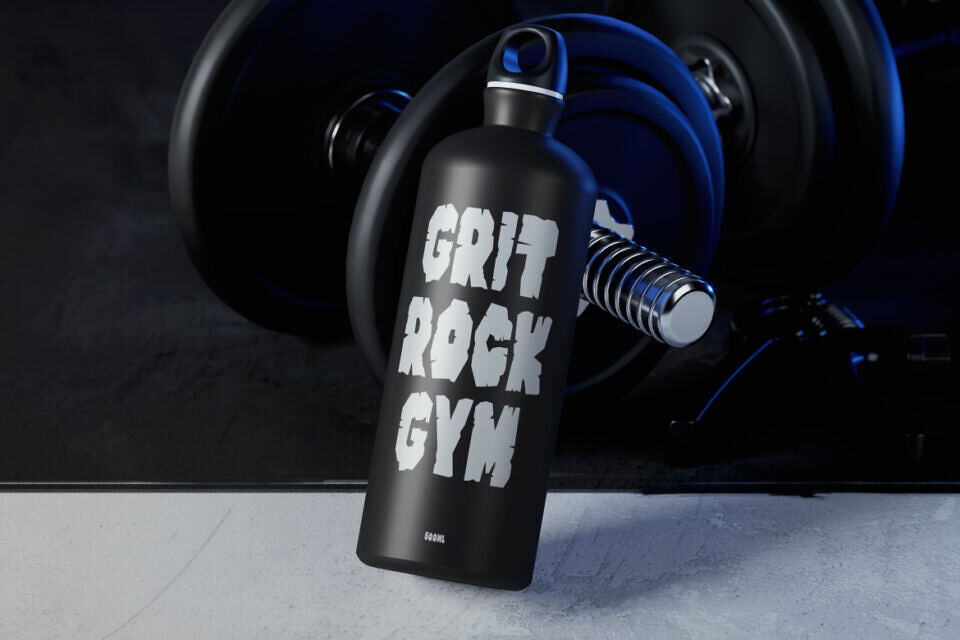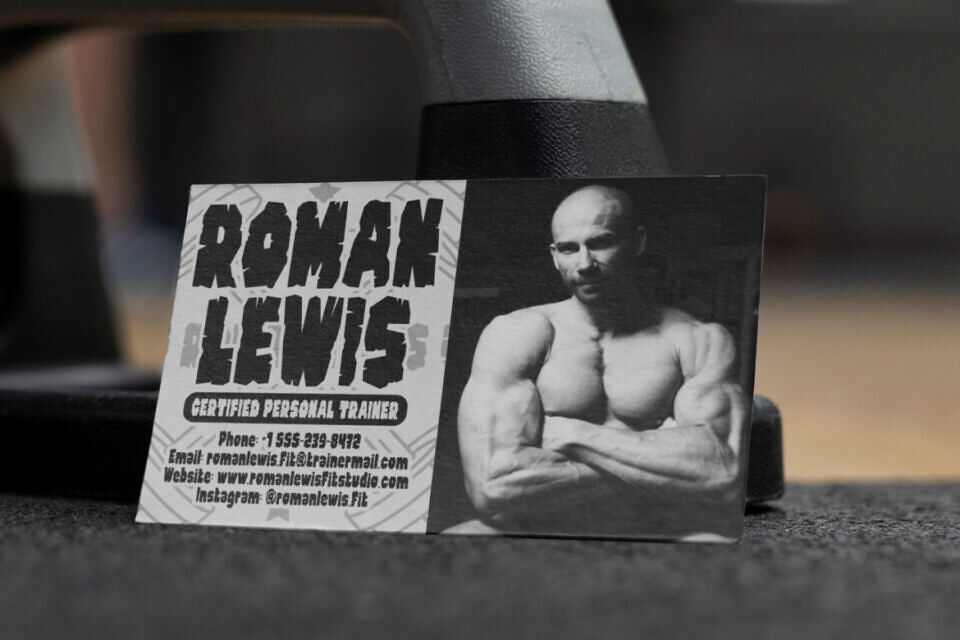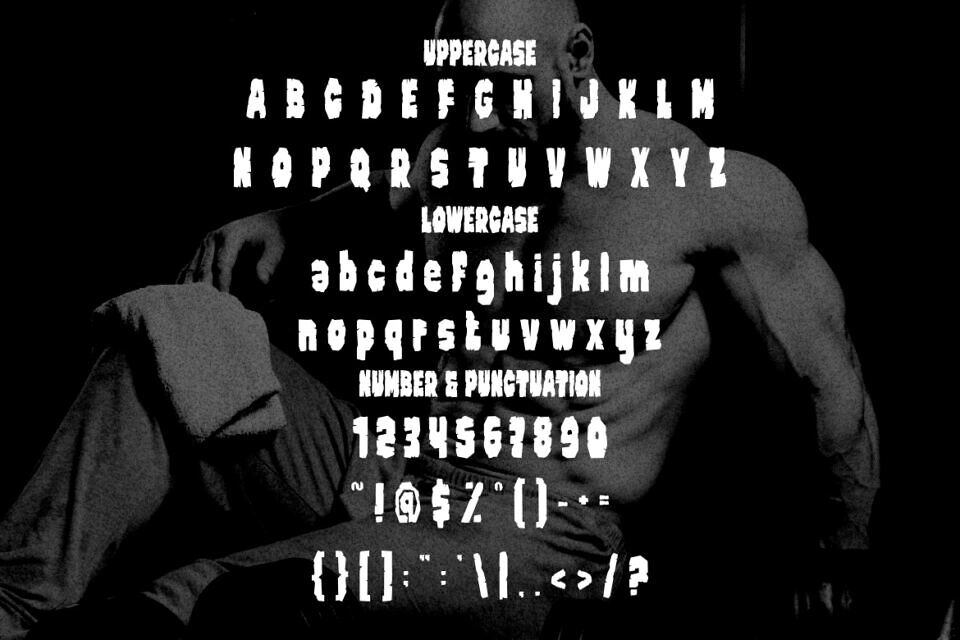
Stone Muscle Font
Stone Muscle is a robust display font with thick, compact characters and sharp edges. Its sturdy letter height and bold stroke weight create a dense, powerful visual effect. The font’s rough, irregular edges and narrow counters give it a tense, weighted feel, as if carved from solid rock.
This font boasts a robust, unified look with tight spacing and a consistent structure. Its raw texture conveys strength and solidity, giving off a bold, masculine vibe. Ideal for logos, headlines, and branding, it exudes confidence and industrial toughness without being overly decorative. It’s perfect for applications where authority is key, such as packaging, business identities, and titles.